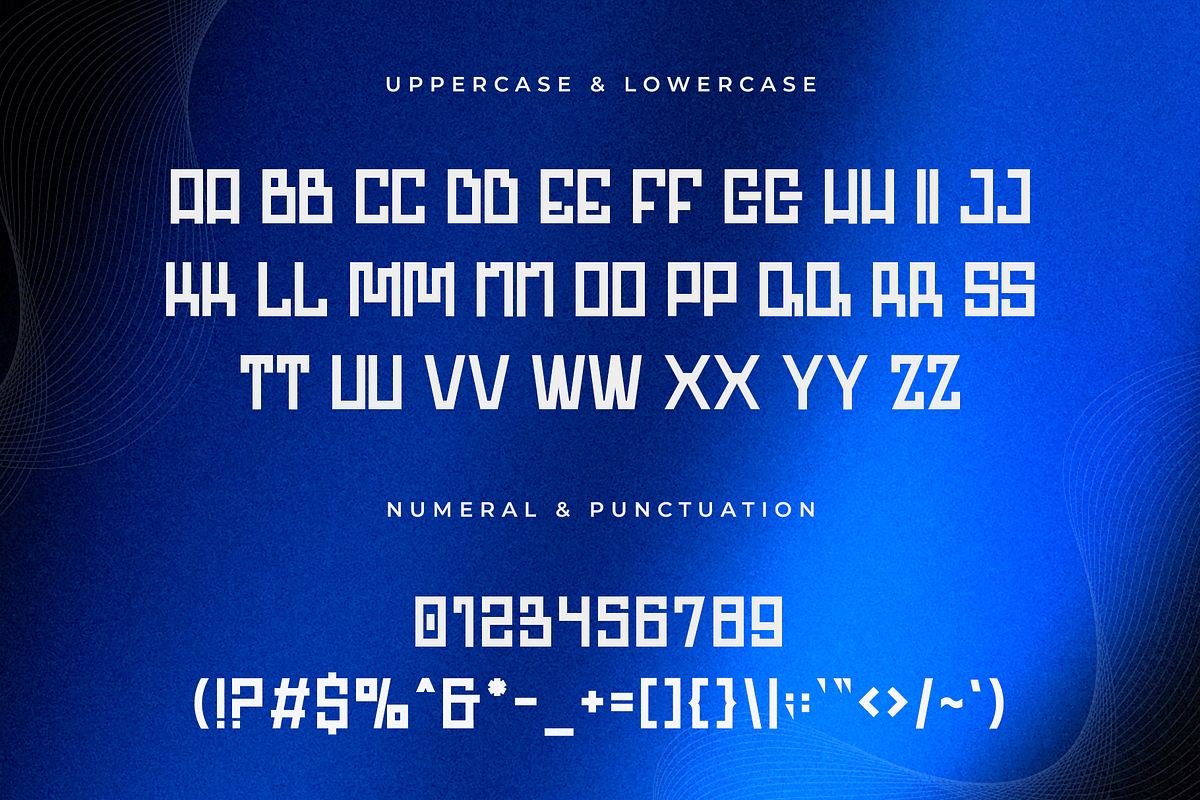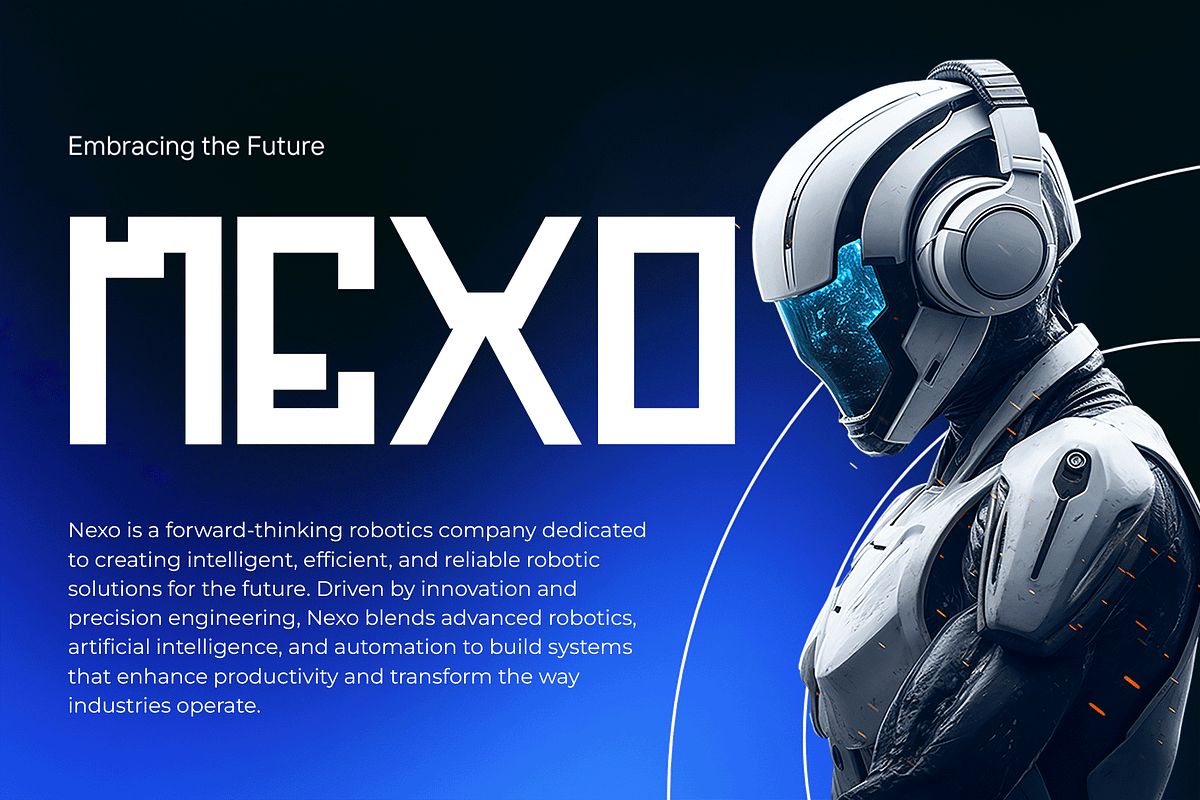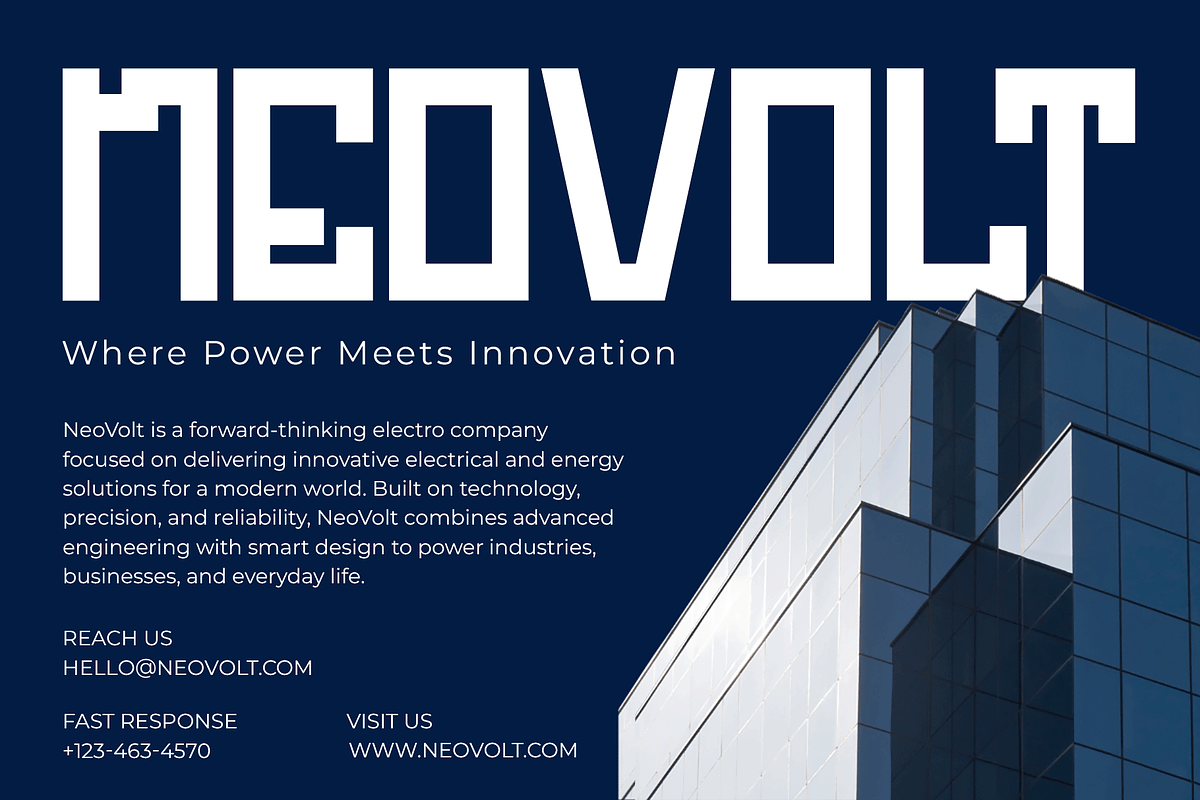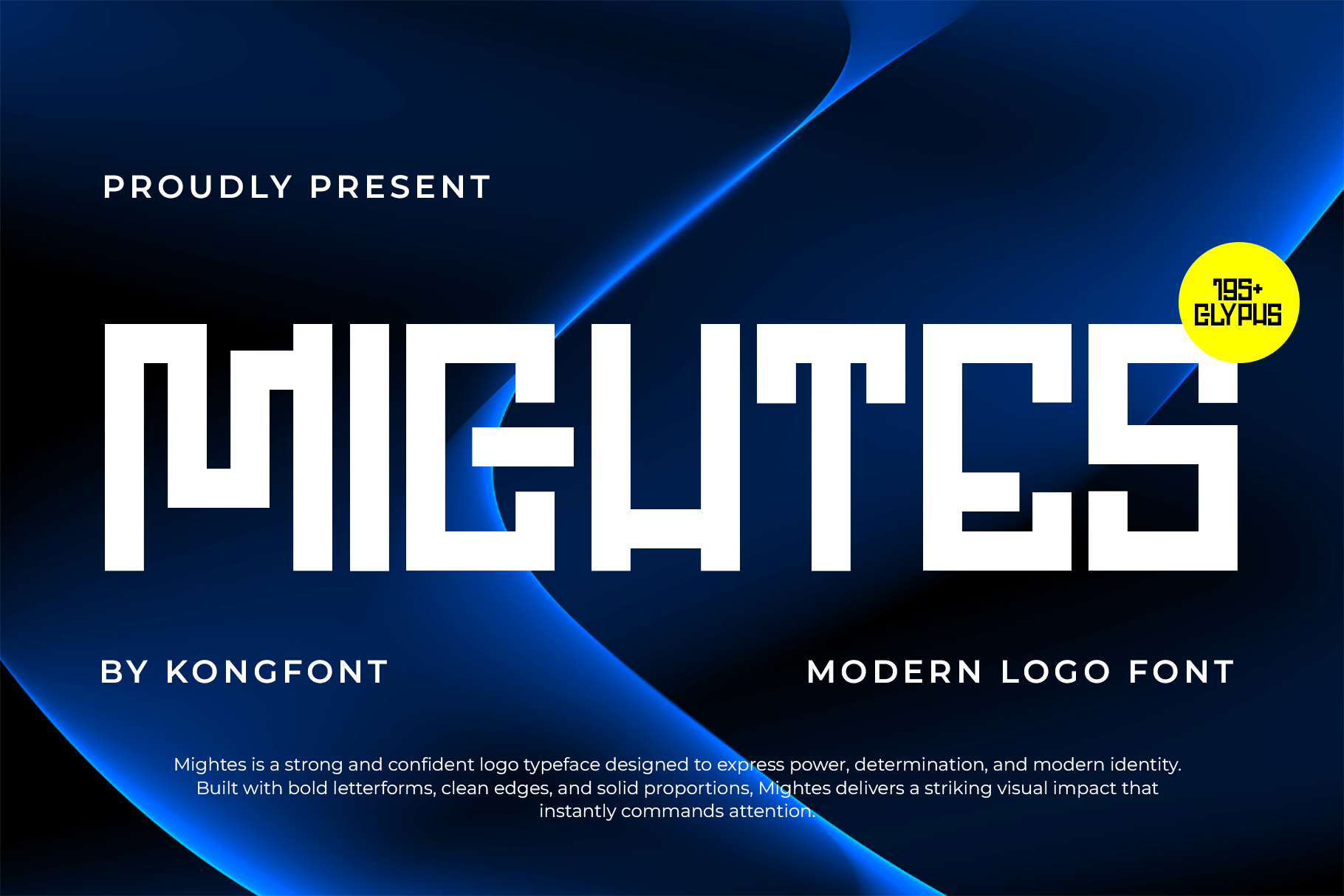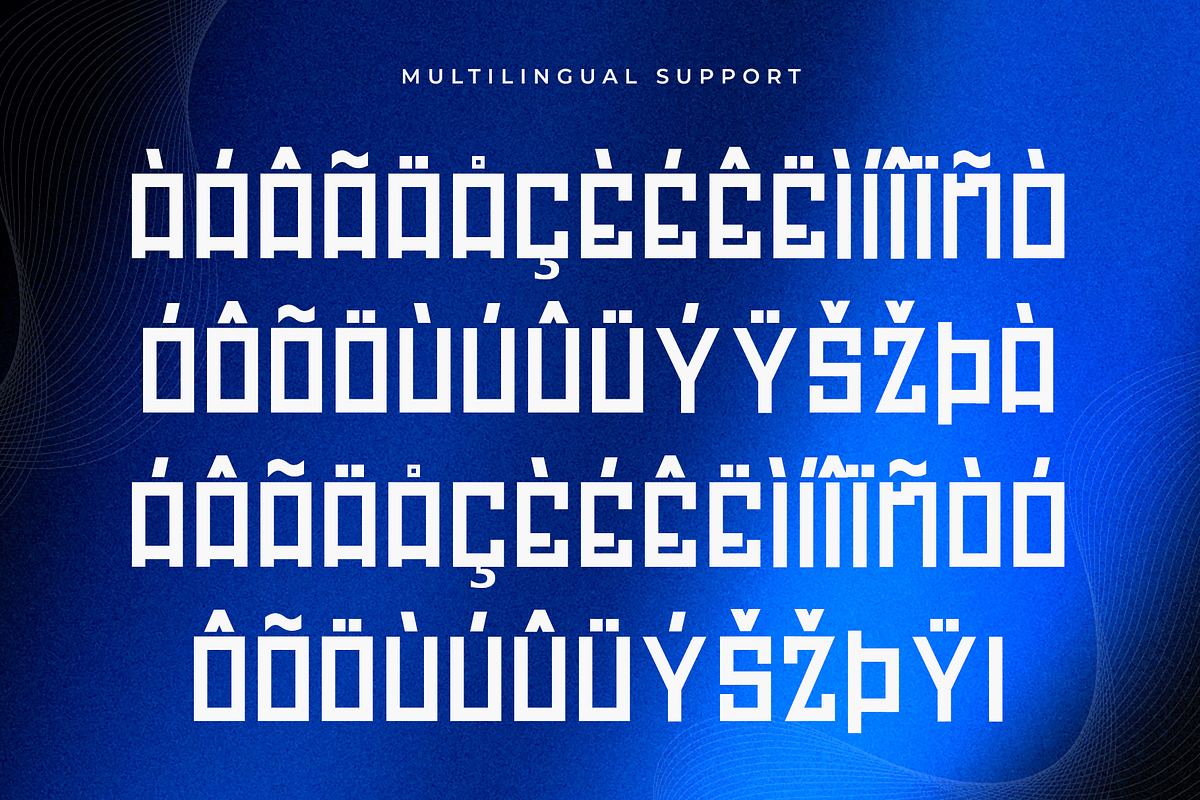
Mightes - Modern Logo Font
*Mightes - Modern Logo Font
Introducing Mightes, a modern logo font designed to create bold, confident, and memorable brand identities. With its clean structure, strong letterforms, and contemporary styling, Mightes delivers a powerful visual presence while maintaining clarity and versatility.
Mightes includes uppercase and lowercase letters, numerals, punctuation, and multilingual support, offering flexibility for a wide range of branding and design needs. Whether you’re launching a new brand or refreshing an existing identity, Mightes provides a solid typographic foundation with modern appeal.
Define your brand with confidence Mightes is the modern logo font that delivers strength, clarity, and lasting recognition.